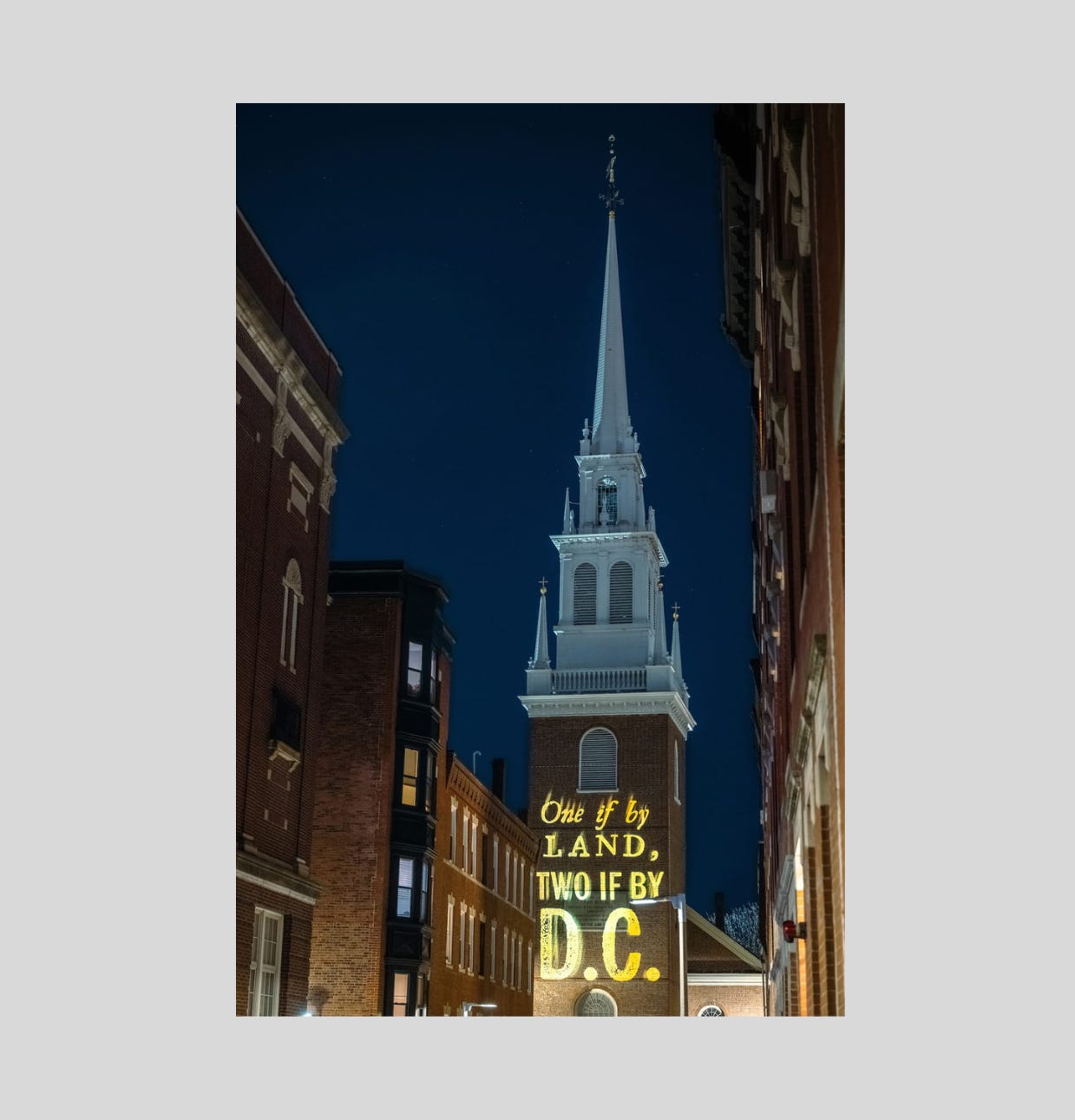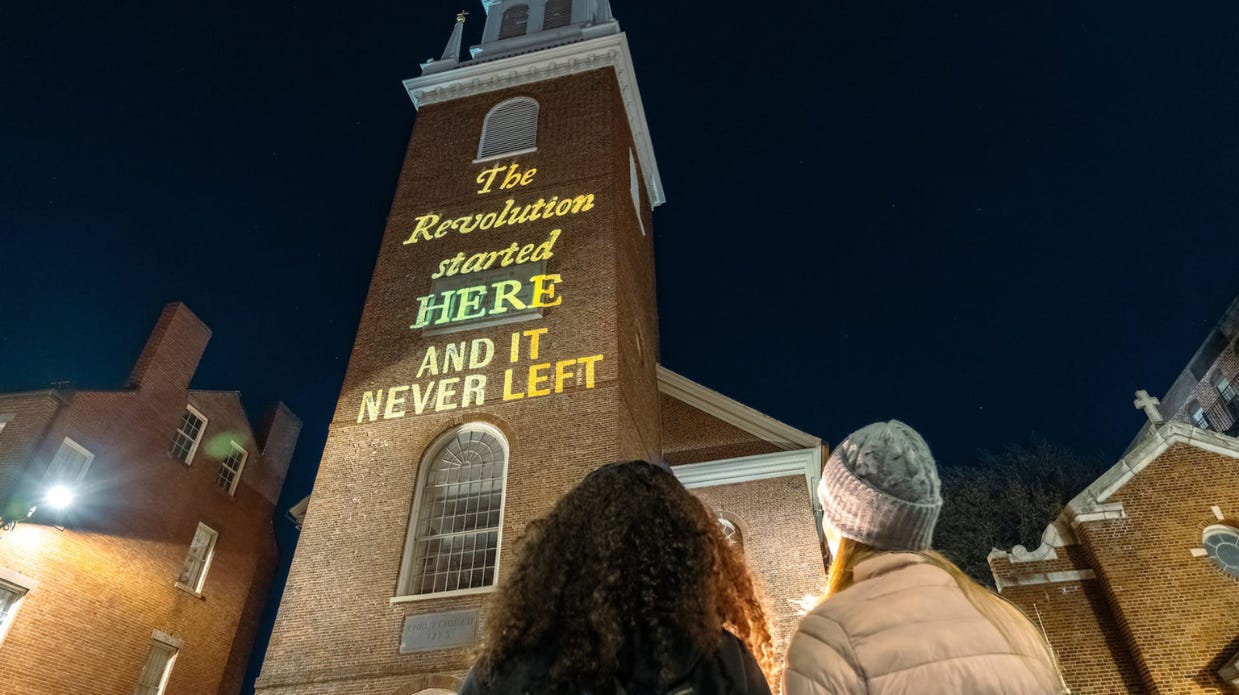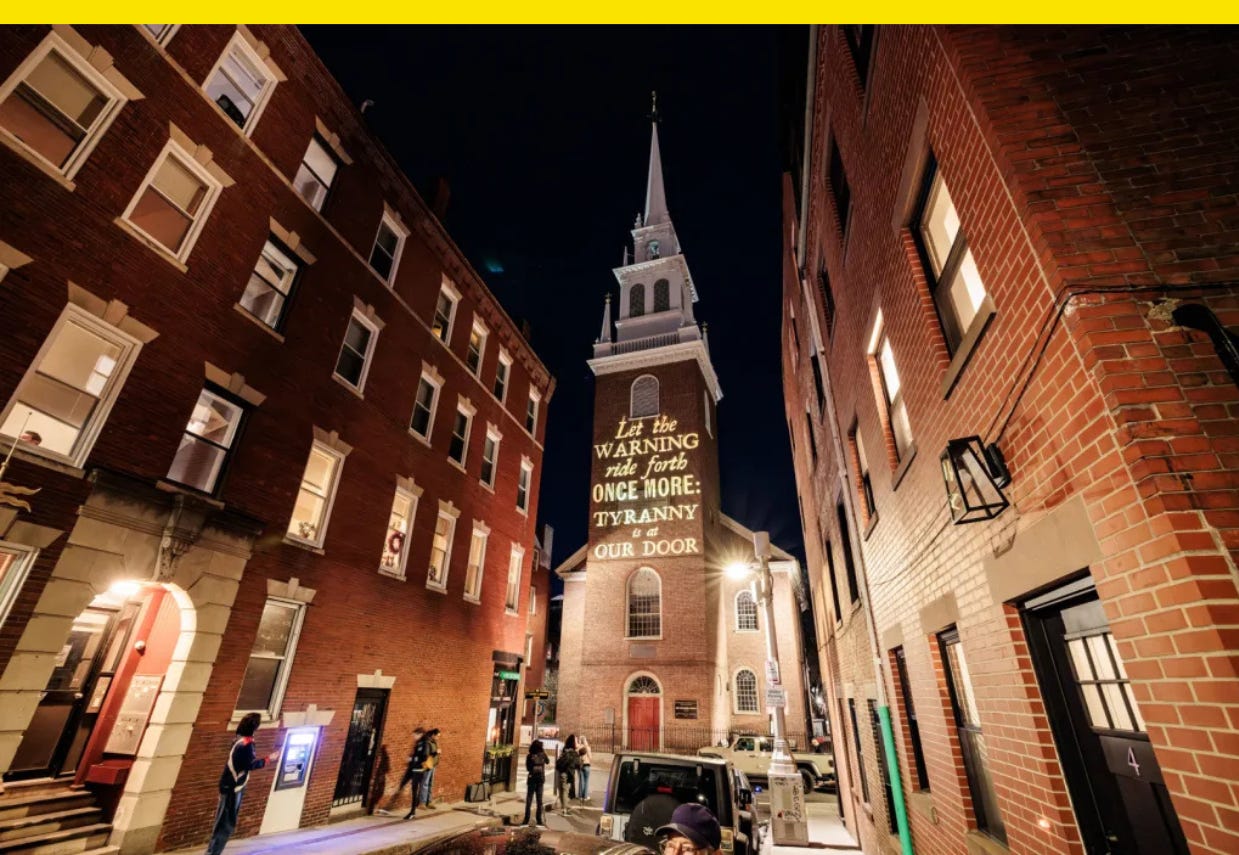
With vintage-style fonts and an anti-Trump message, this collective turns historic buildings into protest zones
The steeple of Boston’s Old North Church has a historic claim to fame. In 1775, Paul Revere arranged for lanterns to be displayed as a signal to colonists that communicated British troop movements, and the route of an impending invasion: one lantern if by land, two if by sea. Now, 250 years later, the church is once again a messenger for a dire moment in American history.
April 18 marked 250 years since Revere’s ride the night before the Battles of Lexington and Concord outside Boston that set off the Revolutionary War. To mark the occasion, a Boston art collective called Silence Dogood, its name a tip of the hat to one of Benjamin Franklin’s pseudonyms, used the occasion to project far less veiled messages in vintage-style typefaces onto the Old North Church’s steeple.
“The Revolution Started Here and It Never Left,” “Let the Warning Ride Forth Once More: Tyranny Is at Our Door,” and “One if by Land, Two if by D.C.” were digs at President Donald Trump and statements of identity about Boston as the birthplace of the American Revolution.
“Two-hundred fifty years later, tyranny has returned,” the group said in a statement. “Let Boston once more be the beacon in the country’s hour of darkness and relight the rallying signal to protect our liberty.”
Silence Dogood started last month with a projection at the Old State House responding to border czar Tom Homan’s comments about “bringing hell” to the city. The visual protests have grown “in a very organic way” since, an organizer tells Fast Company. The group is finding ways to both react to events as they unfold in real time and mark the anniversary of the Revolutionary War with messages about the Trump administration’s abuses of power.
Projections were a staple of protest against Trump in his first term; activists and artists projected critical messages onto Trump’s hotels in cities like Washington, D.C., and Chicago. Silence Dogood has taken that concept and adopted it for Boston, and for the nation’s semiquincentennial, with thoughtful font and location choices. That the White House touted Trump a king only bolsters the group’s message.
The projections were written in a handful of fonts, including some the group has customized. One was chosen as an homage to colonial-era pamphlets like Thomas Paine’s 1776 “Common Sense,” which gives their projections a sense of historic context, paired with a more blocky font used in all-caps.
By bringing their projections to historic sites and using fonts and anniversaries to tie history to the modern day, Silence Dogood has tapped into a potent medium that brings timely messages to timeless locations with only the power of type and light.